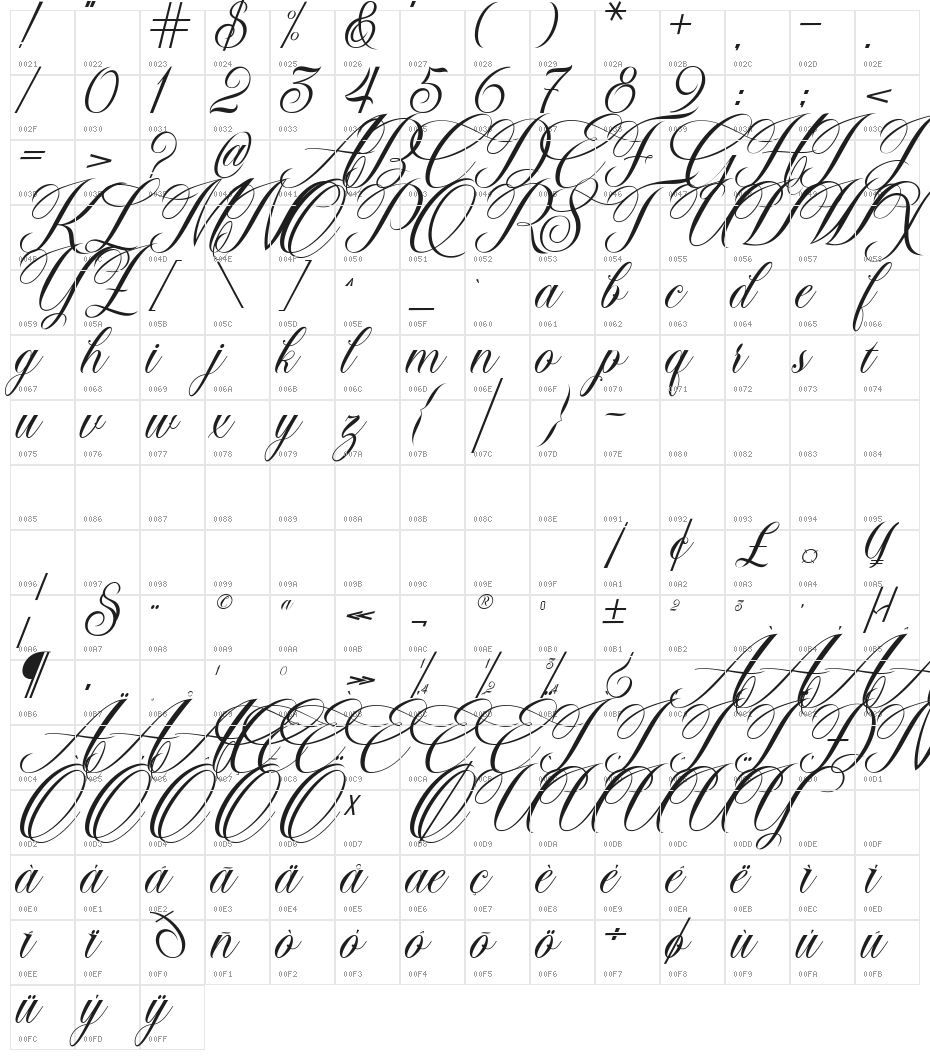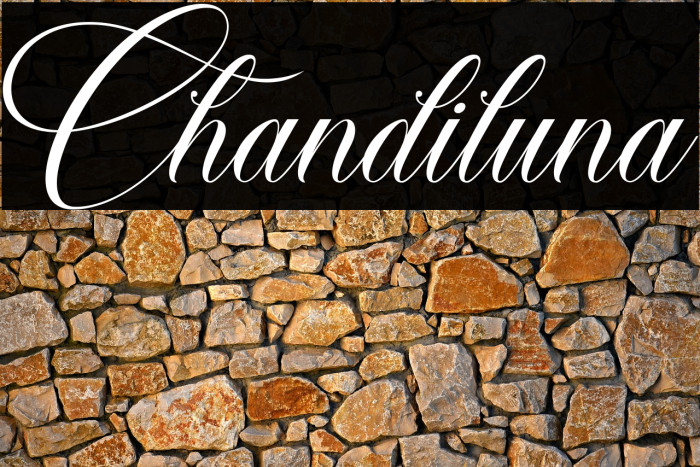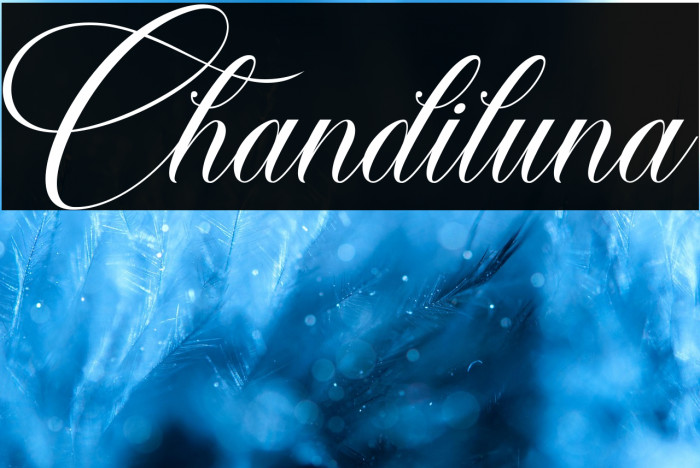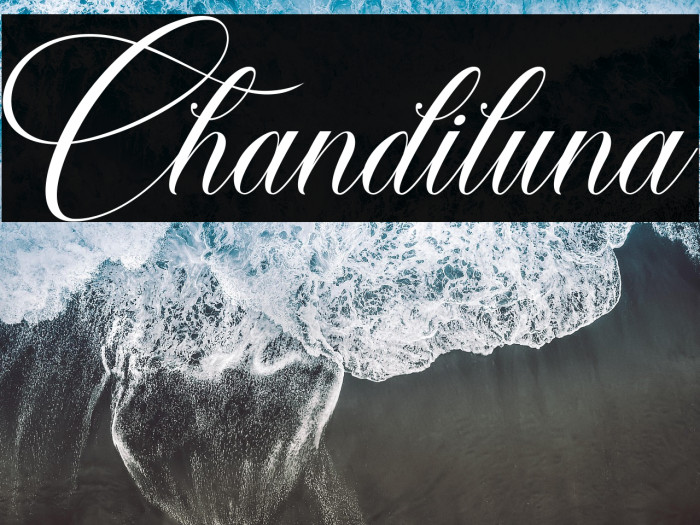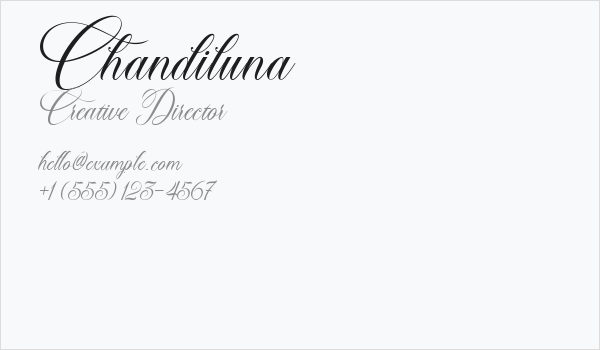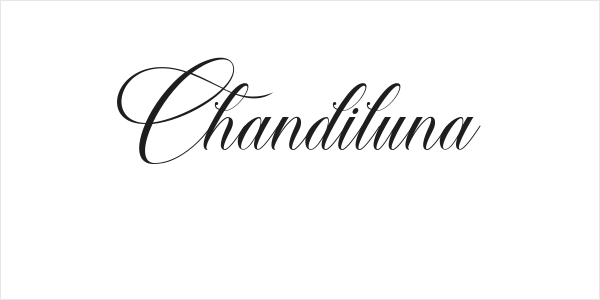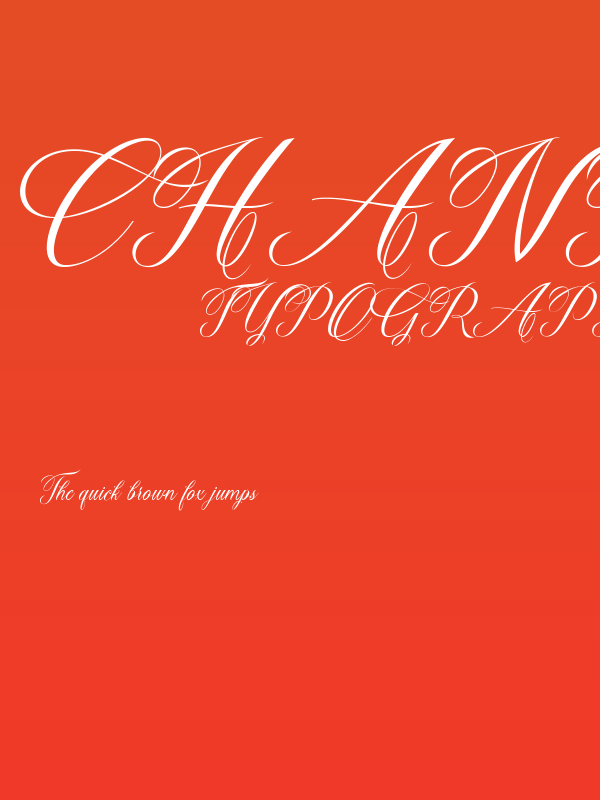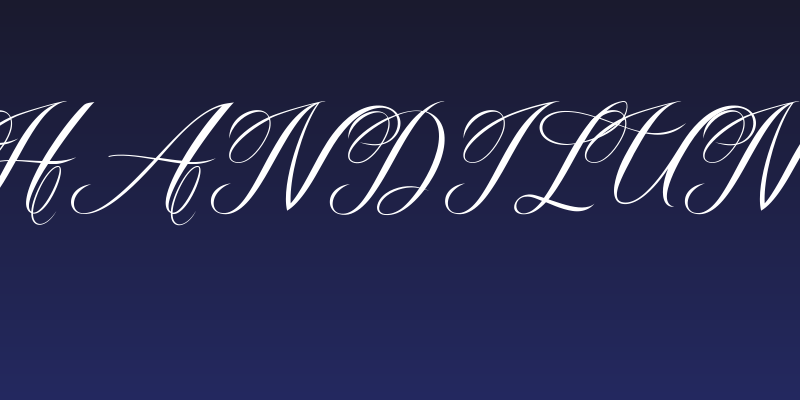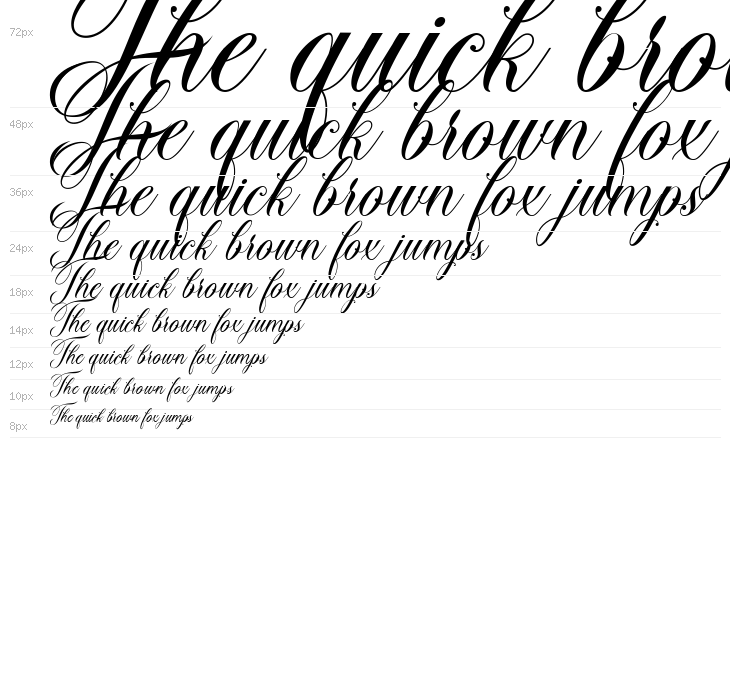
Chandiluna Font
Chandiluna Description
This elegant script font features a flowing, cursive style with high contrast between thick and thin strokes. The uppercase letters are ornate, with intricate loops and flourishes that add a touch of sophistication. The lowercase letters maintain a consistent slant, enhancing the fluidity and grace of the text. Numbers and special characters are designed to complement the overall aesthetic, with similar decorative elements. This font exudes a sense of luxury and refinement, making it ideal for formal invitations, branding, and high-end product packaging.
| Overall Style | Elegant, Sophisticated |
| Use Case | Headlines, Invitations, Branding |
| Proposed Projects | Ideal for wedding invitations, luxury branding, elegant product packaging, and formal event materials. |